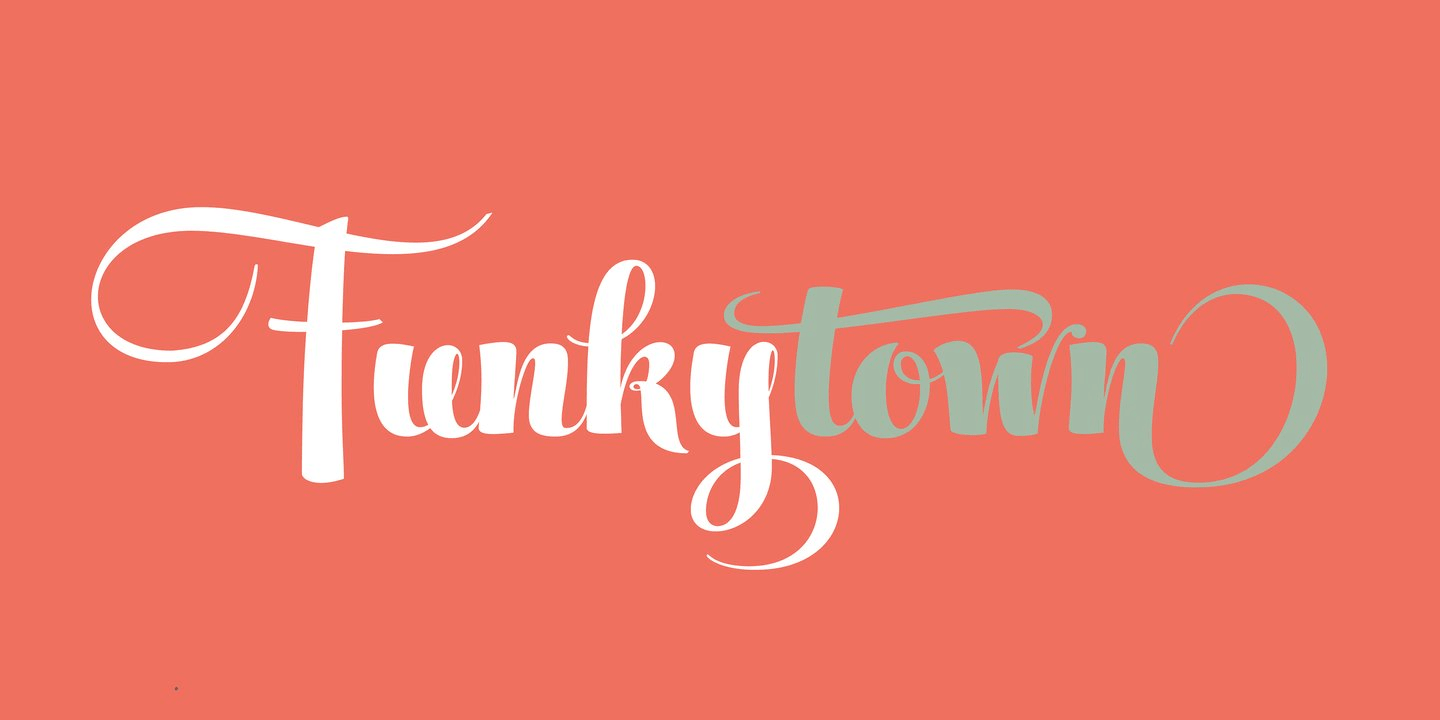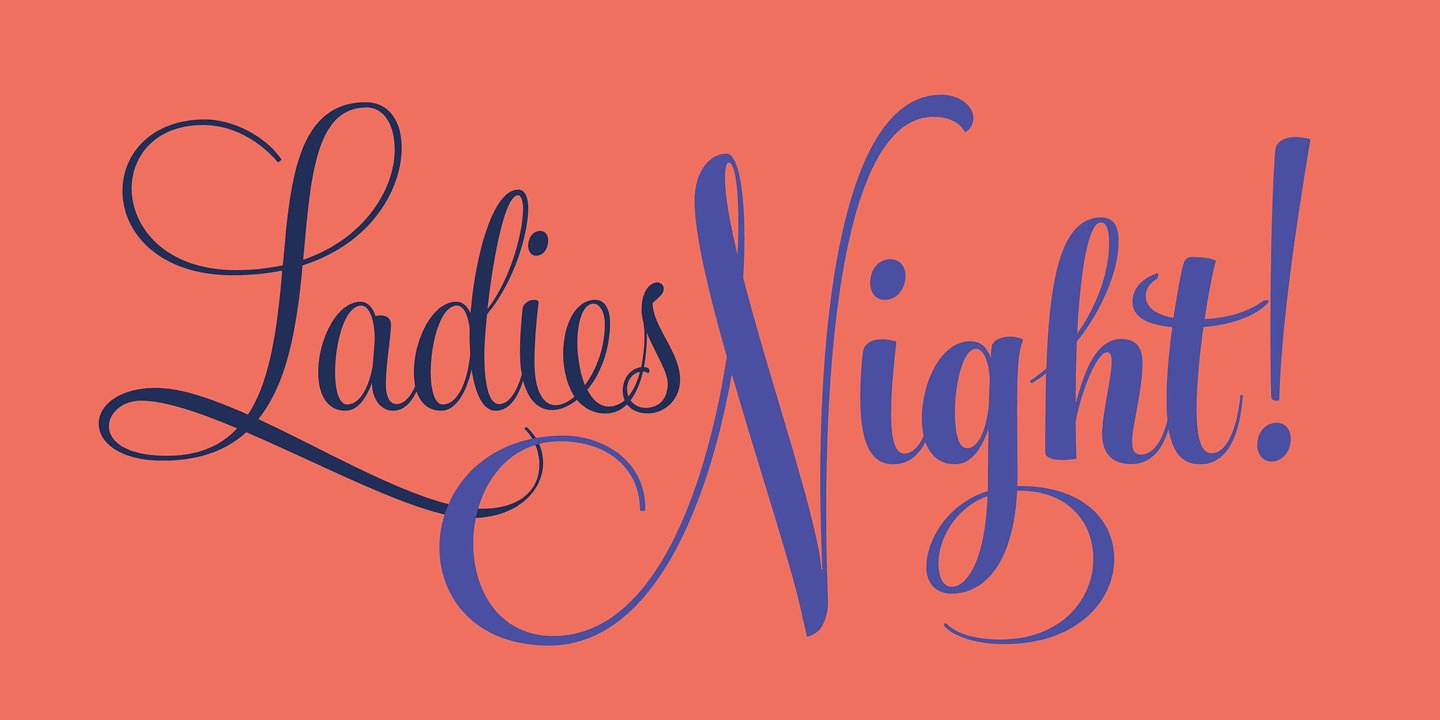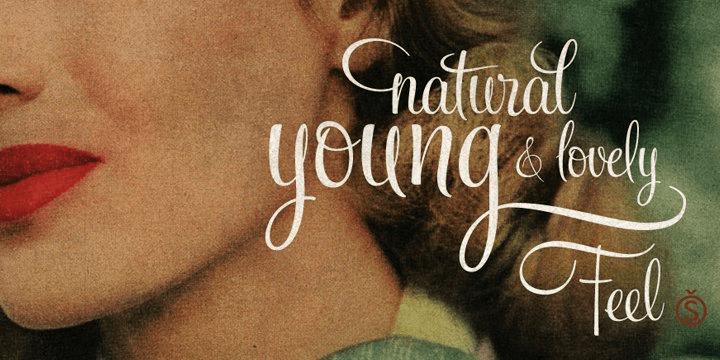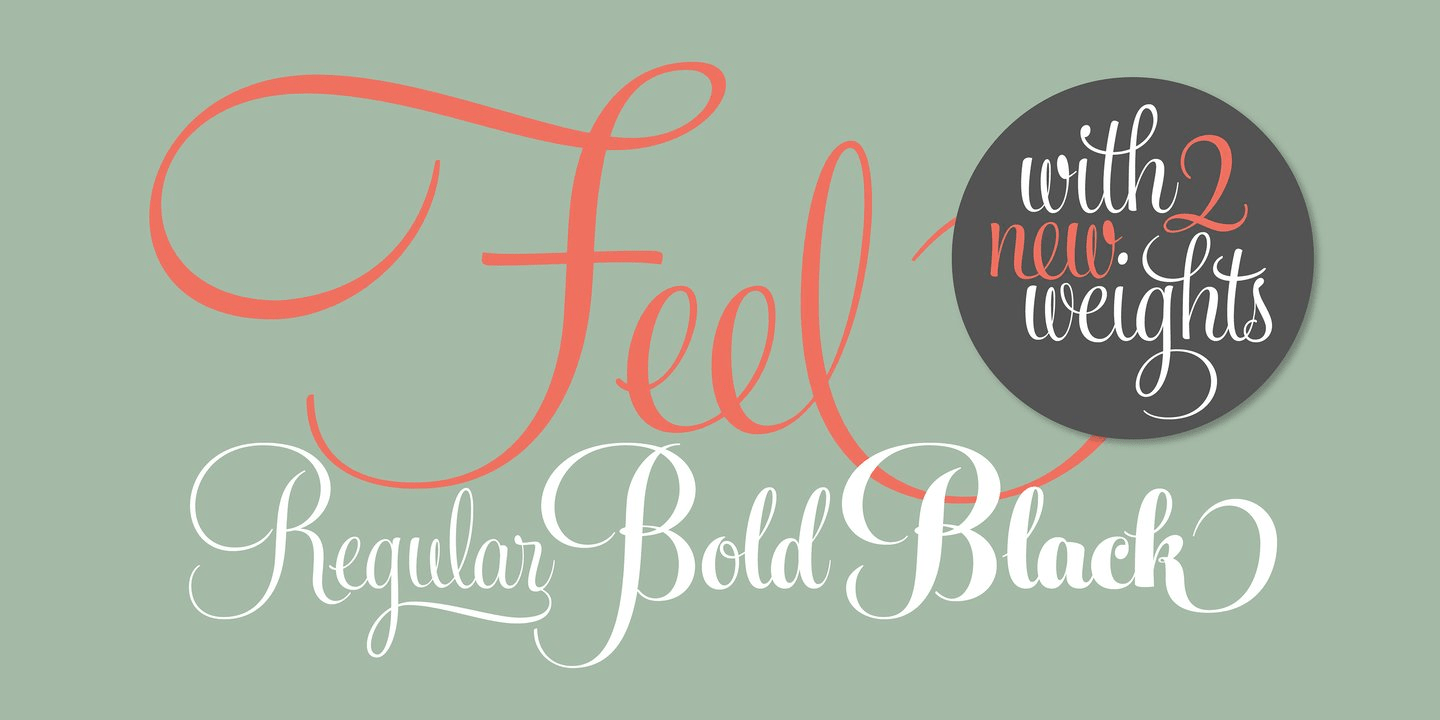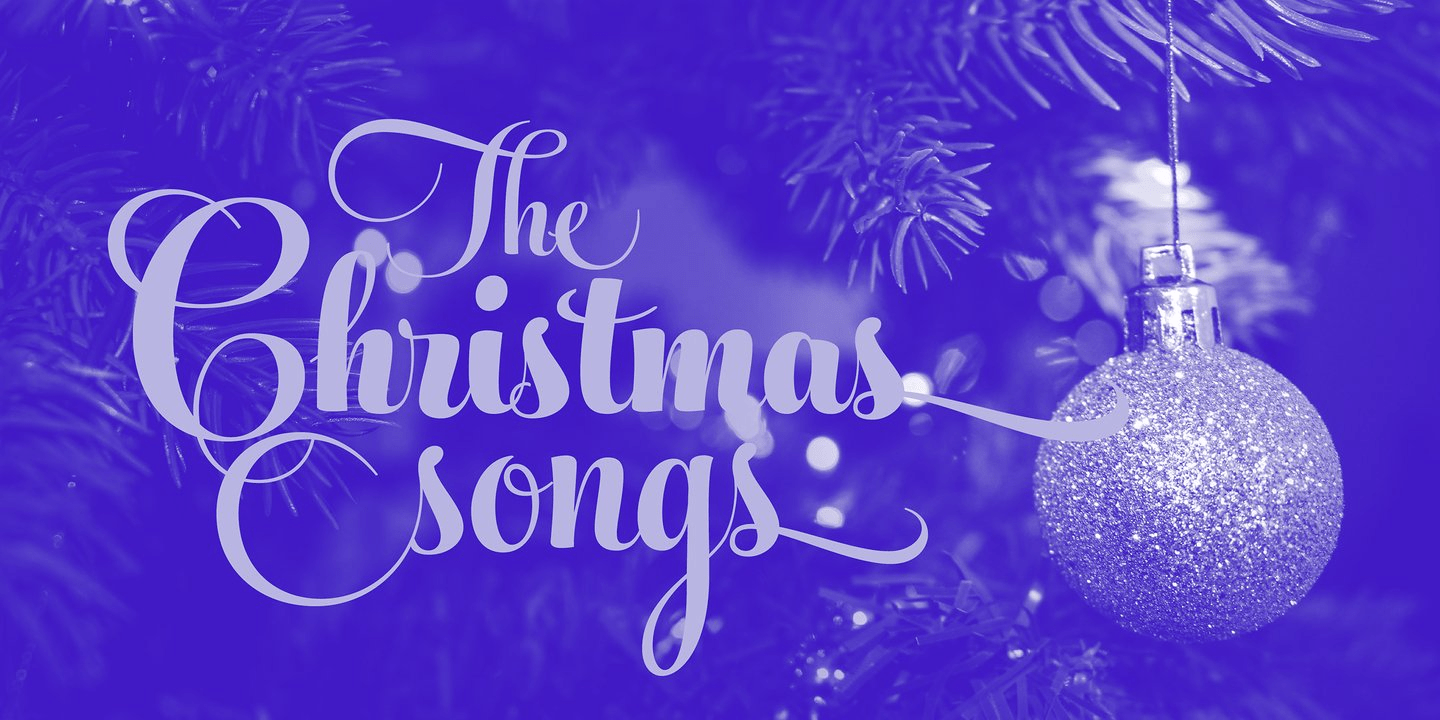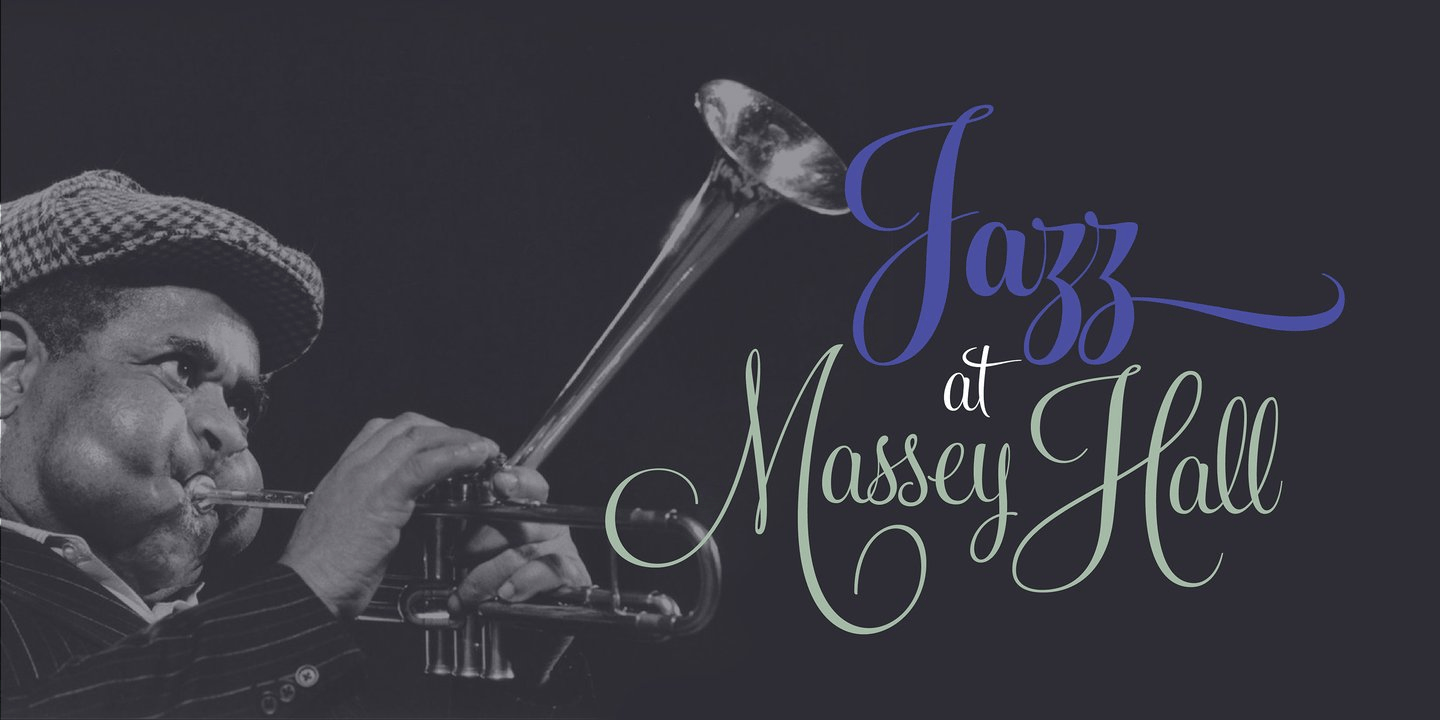
Feel Script
About Feel Script
Feel Script is based on lettering that calligrapher and logo designer Rand Holub created for Intertype for his face Monterey. Fortunately, I didn\’t have the technological limitations today that Intertype had back then. Holub\’s lettering is presented in…